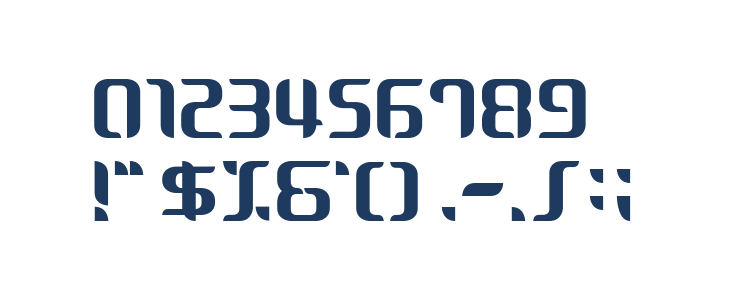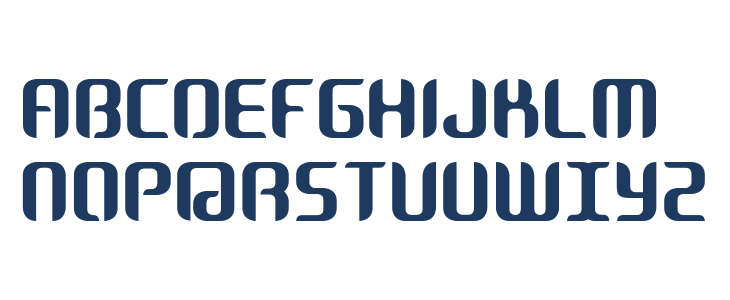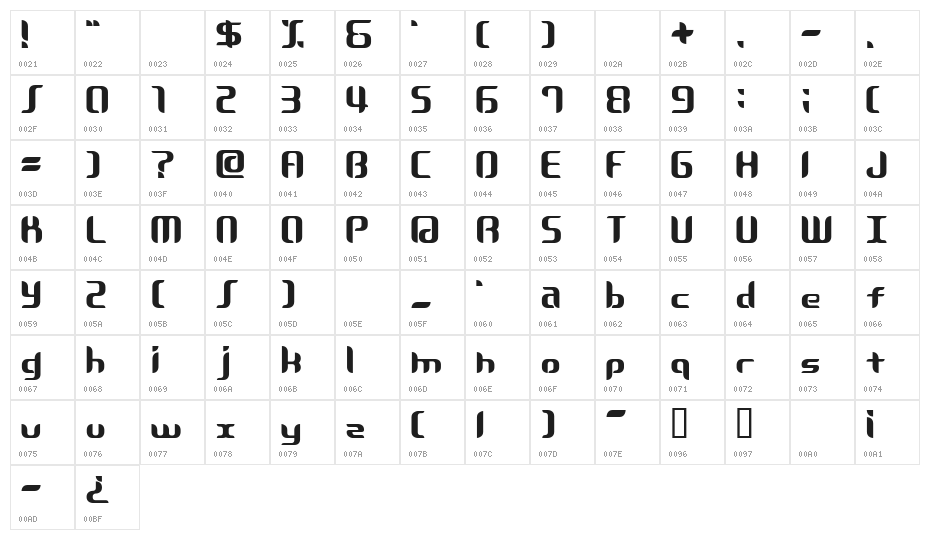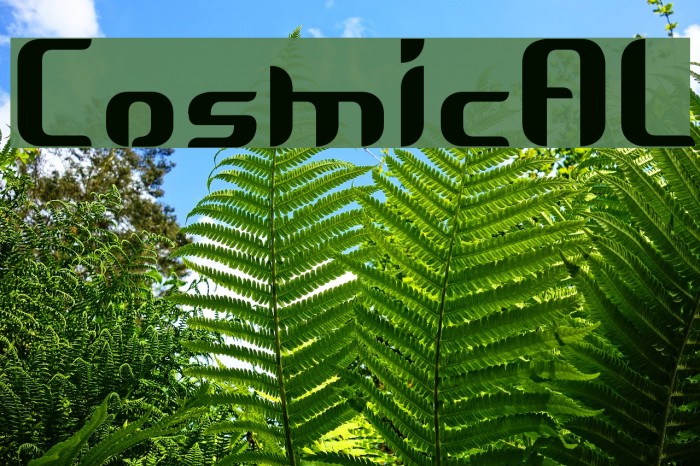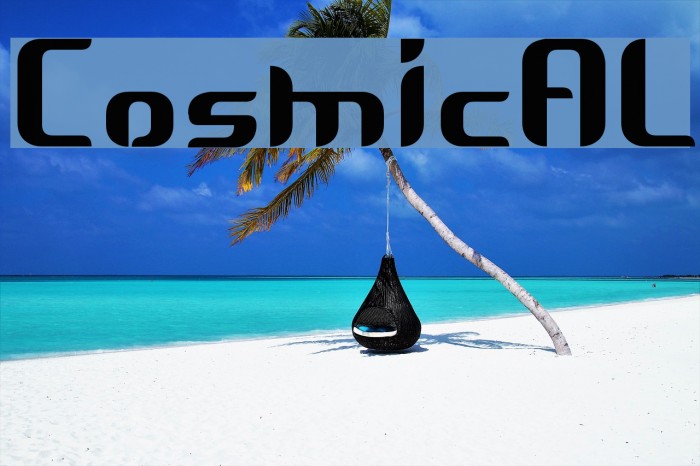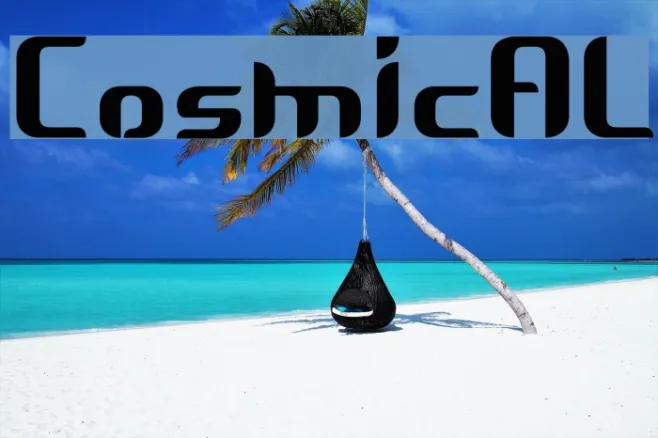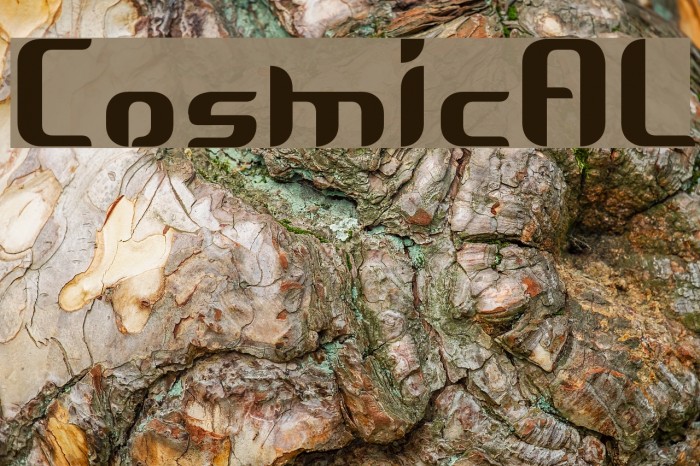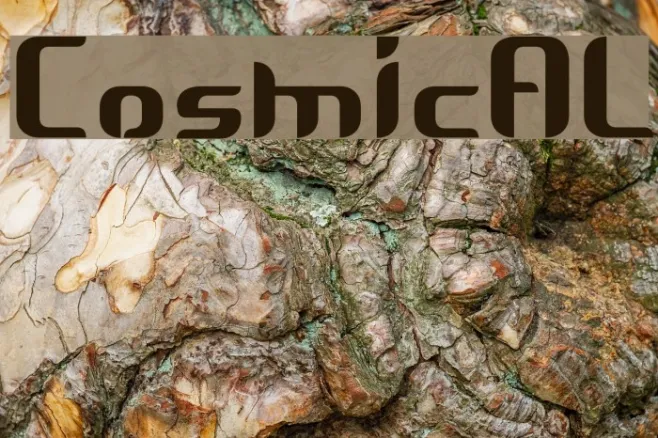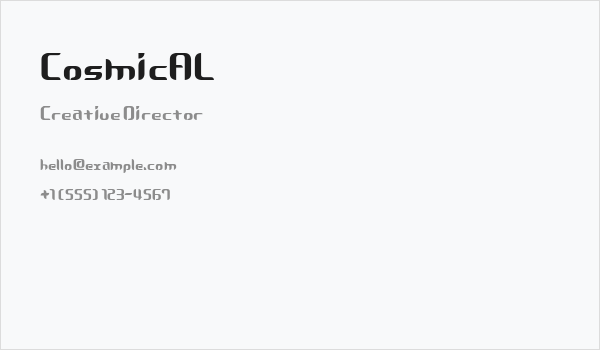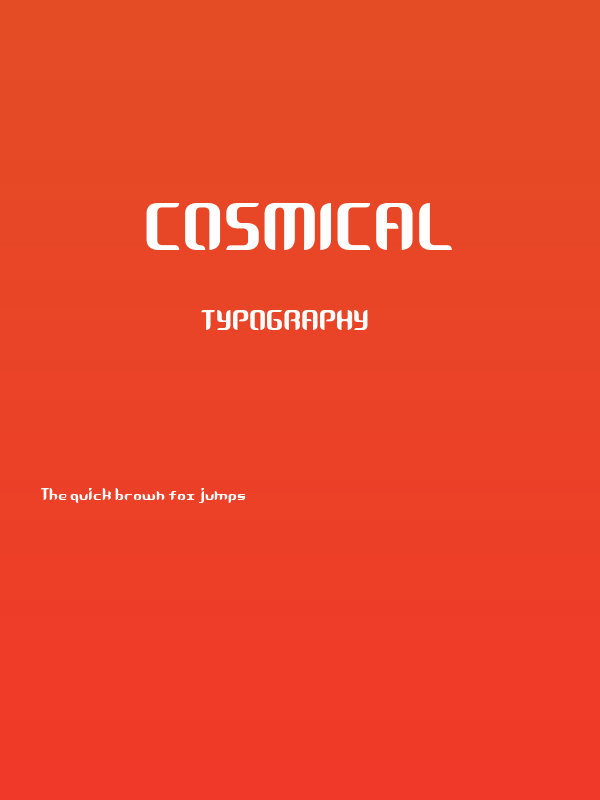
CosmicAL Font
CosmicAL Description
This font features a futuristic and geometric design with rounded edges and a bold presence. The characters are uniformly structured, creating a cohesive and modern look. The uppercase letters are distinct with a slightly condensed form, while the lowercase letters maintain a consistent style that complements the uppercase. The numerals are clear and easy to read, with a similar geometric style. Special characters are designed to match the overall aesthetic, making this font suitable for a variety of creative applications.
| Proposed Projects | Ideal for sci-fi themed projects, technology branding, modern posters, and digital interfaces. |